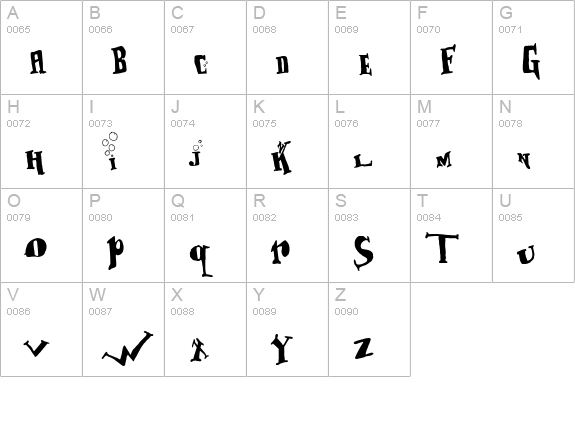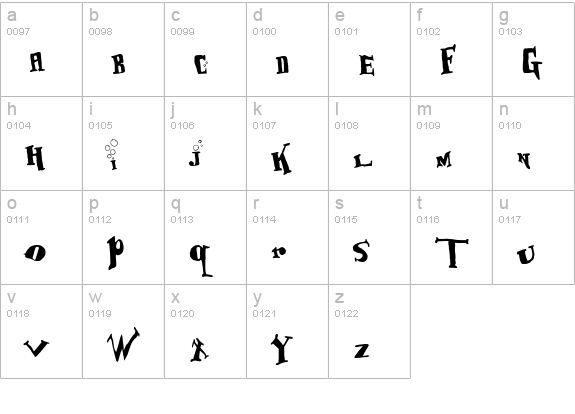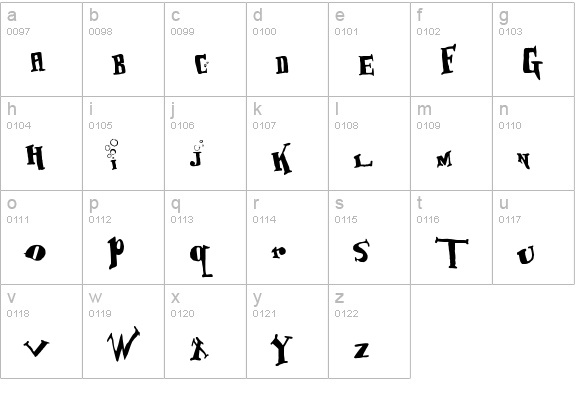
BabOonjaZzbaSsoOn Font Details
Introducing the captivating and unique BabOonjaZzbaSsoOn font, a true masterpiece that will instantly elevate any design project to a whole new level of creativity and style. This one-of-a-kind font is sure to catch the eye and leave a lasting impression on anyone who encounters it. BabOonjaZzbaSsoOn font boasts a stunning combination of boldness and elegance, making it perfect for a wide range of design applications. Whether you're creating eye-catching logos, striking headlines, or memorable social media posts, this font has got you covered. What sets BabOonjaZzbaSsoOn font apart is not only its exceptional aesthetics but also its incredible versatility. It effortlessly adapts to various design styles, from modern and edgy to classic and refined, ensuring that it can be seamlessly incorporated into any project. And the best part? BabOonjaZzbaSsoOn font is completely free! Yes, you read it right. This extraordinary font is freely available to download at FontsMarket.com, allowing designers and enthusiasts alike to access its beauty and unleash their creative potential without any cost. Don't miss out on the opportunity to enhance your designs with the captivating allure of BabOonjaZzbaSsoOn font. Download it today for free at FontsMarket.com and let your imagination run wild. Unlock a world of endless possibilities and make your designs truly remarkable with this remarkable font.